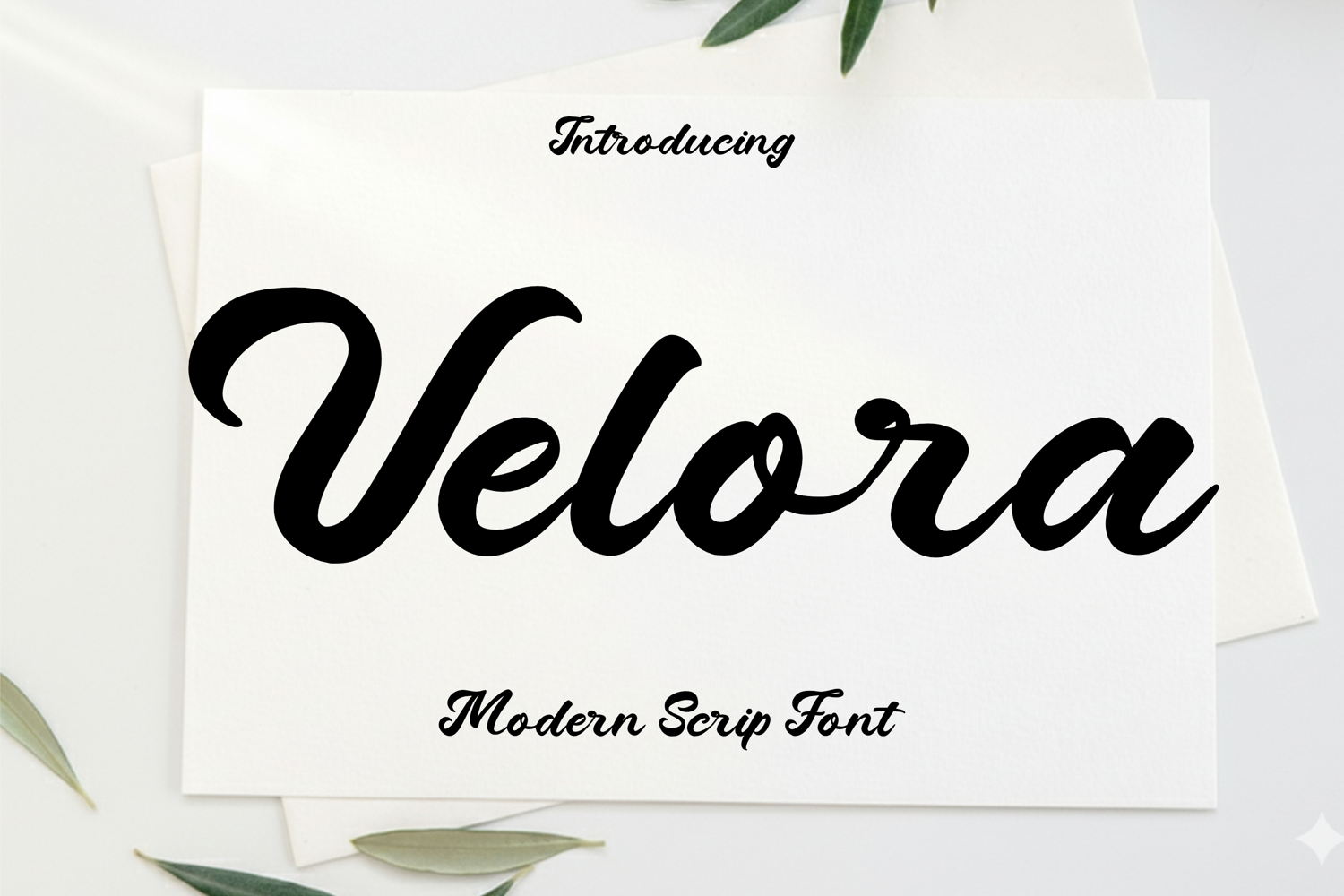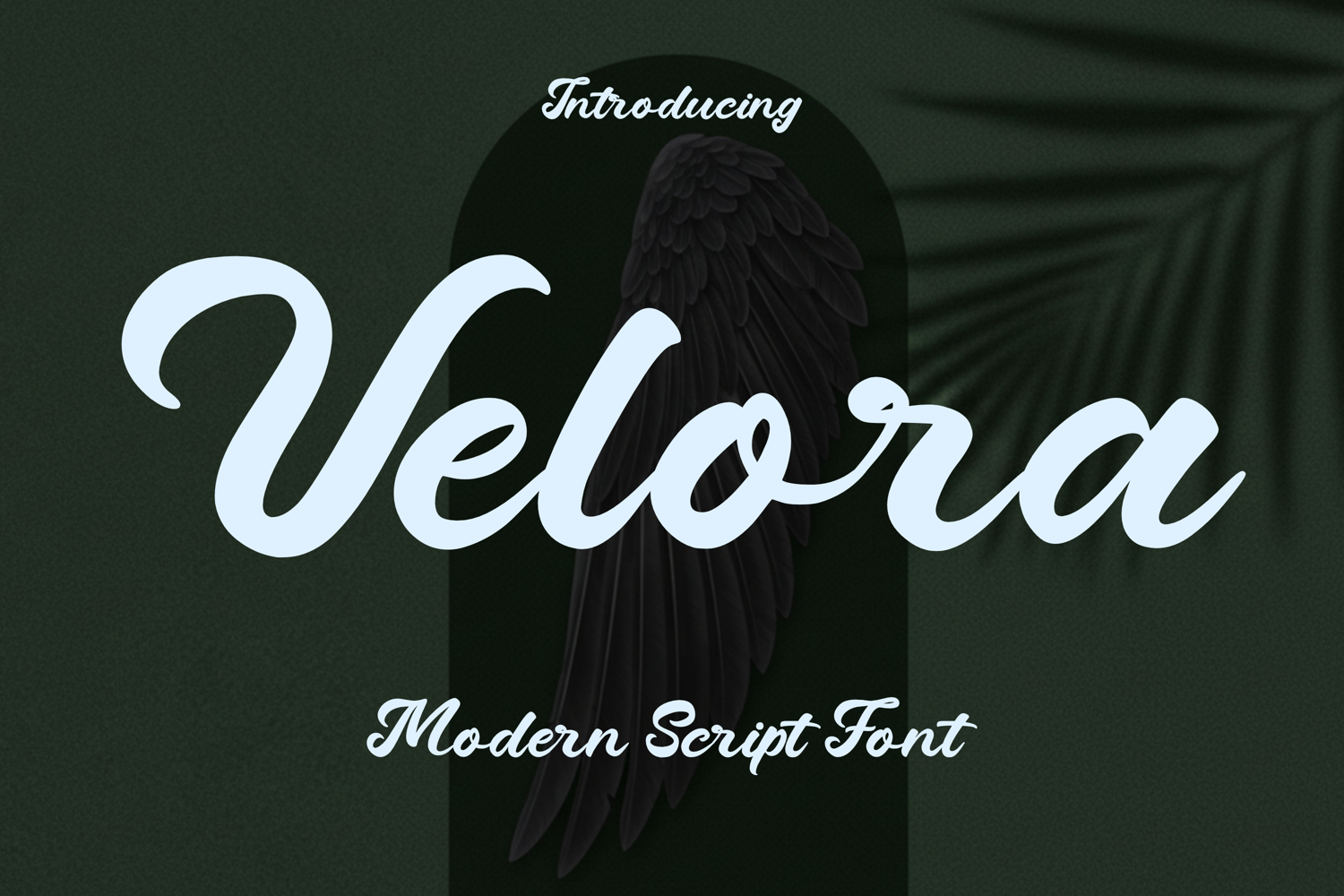
Velora - Modern Script Font
Velora is a modern script font that blends smooth curves with bold elegance. Designed for creators who want a touch of luxury and personality, Velora brings every word to life with its flowing strokes and confident style.
Perfect for branding, logos, product packaging, invitations, social media quotes, and any project that needs a stylish handcrafted look. With its clean readability and expressive curves, Velora adds a timeless charm to every design.
Bring elegance, warmth, and premium character to your creative work with Velora.